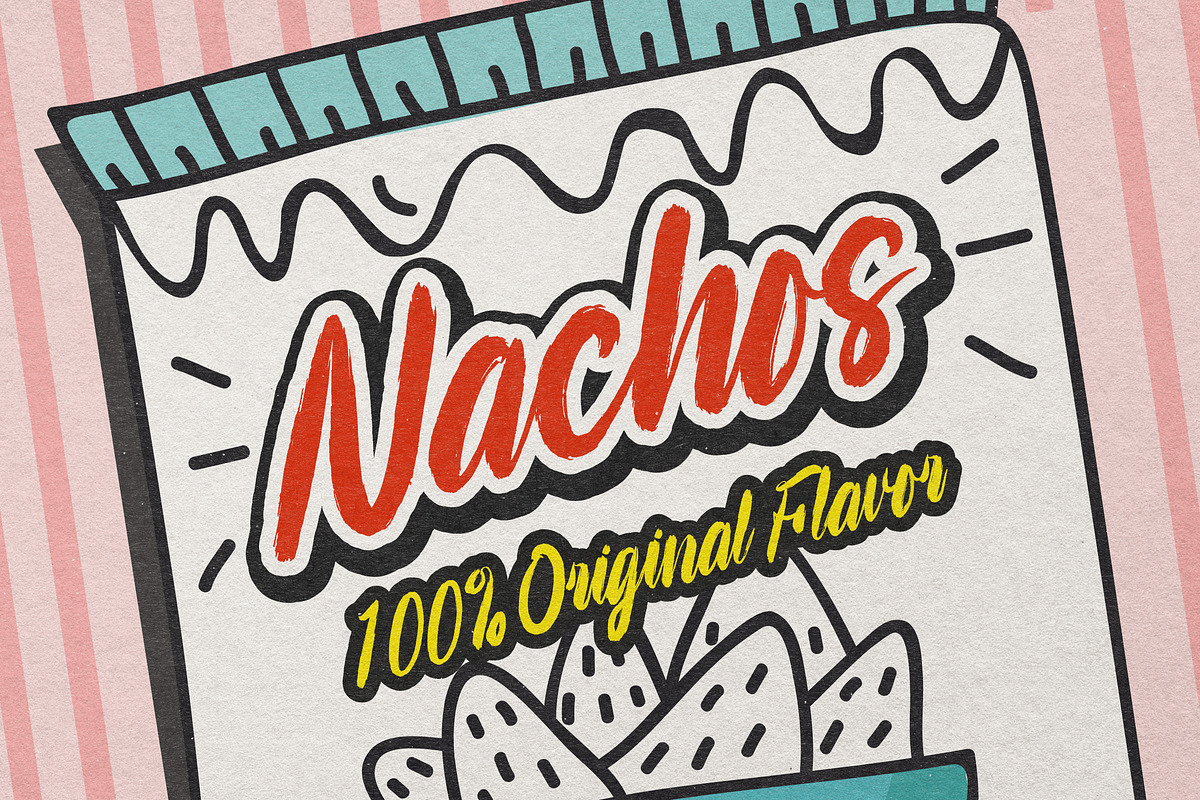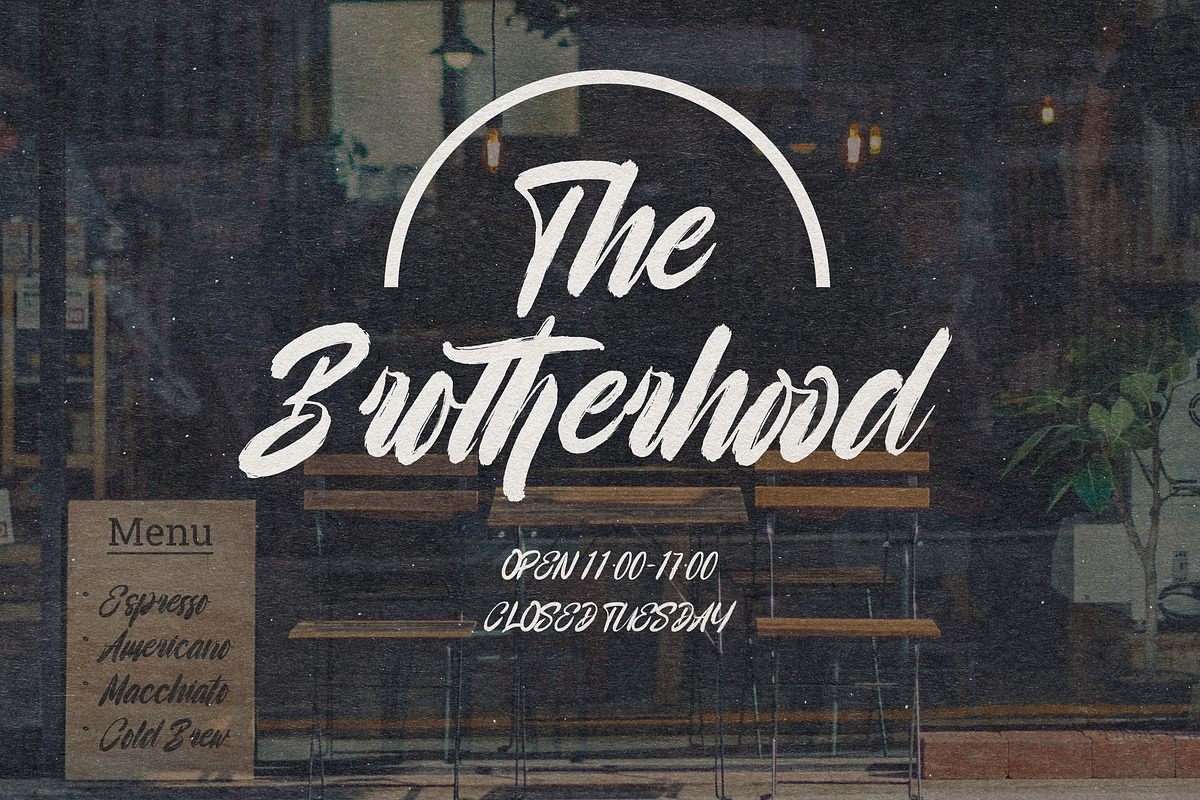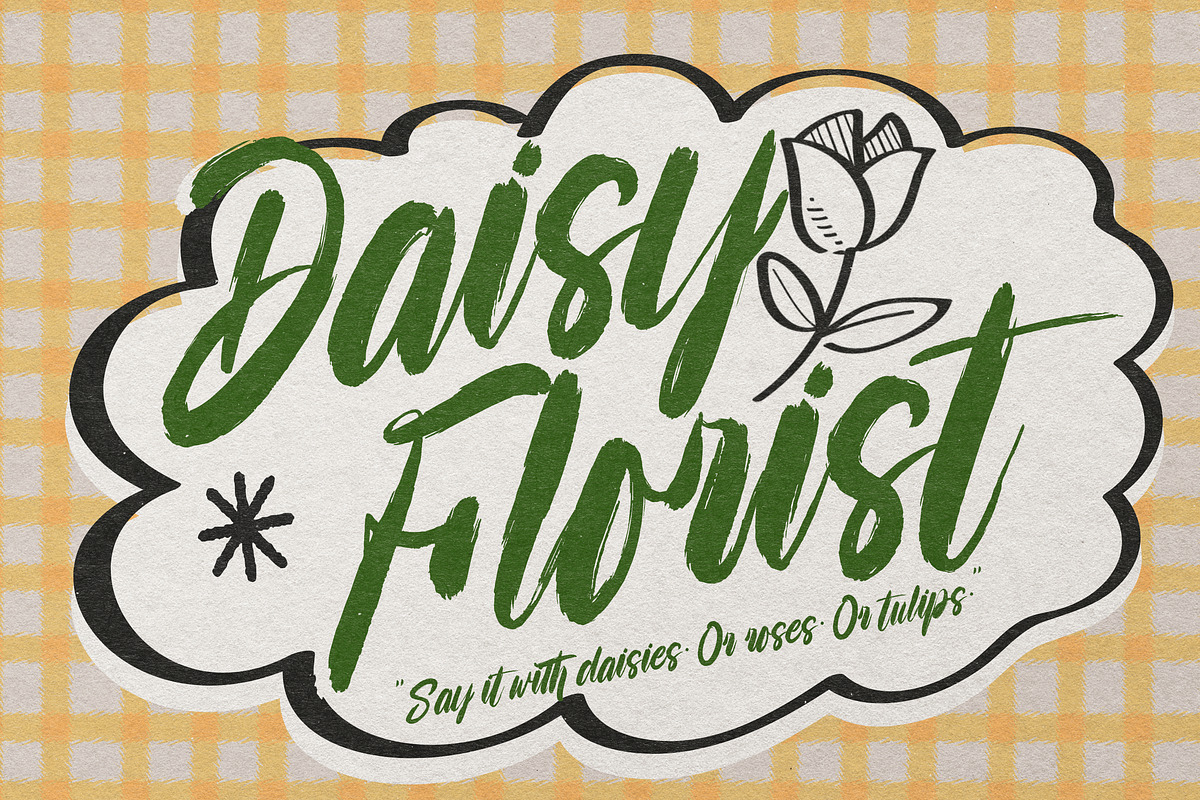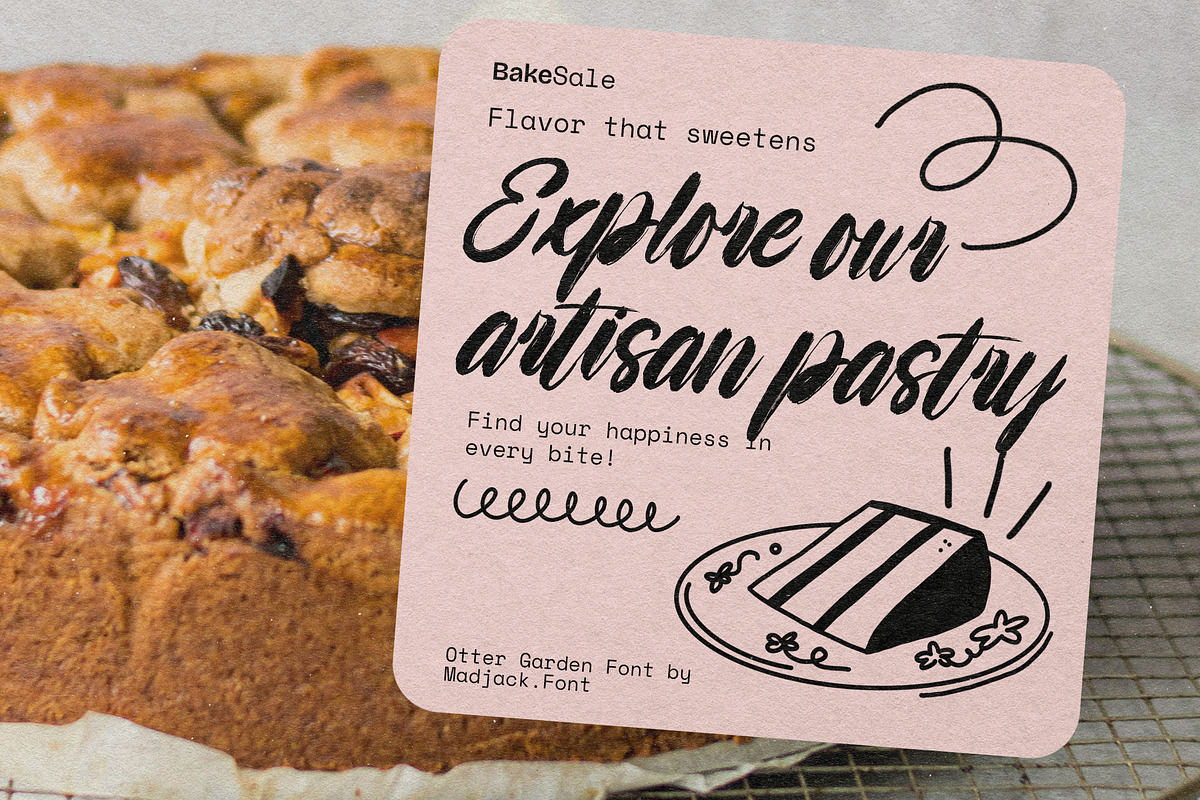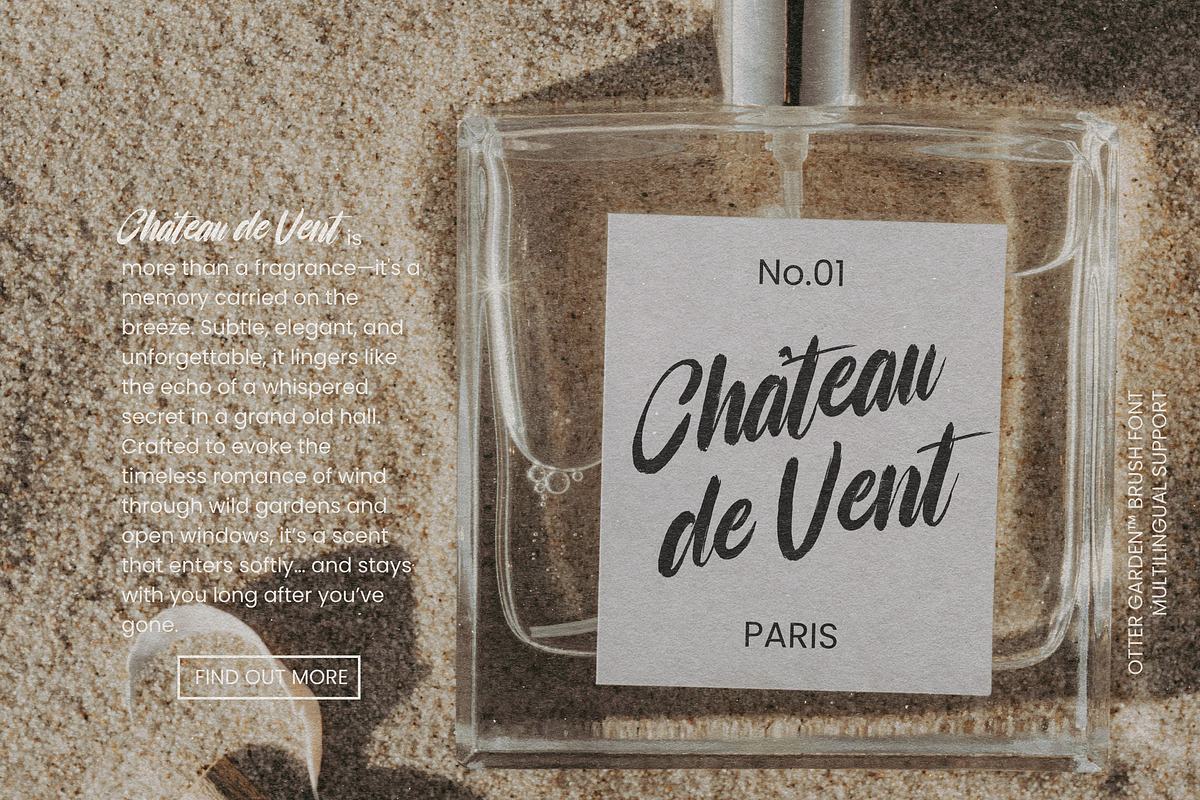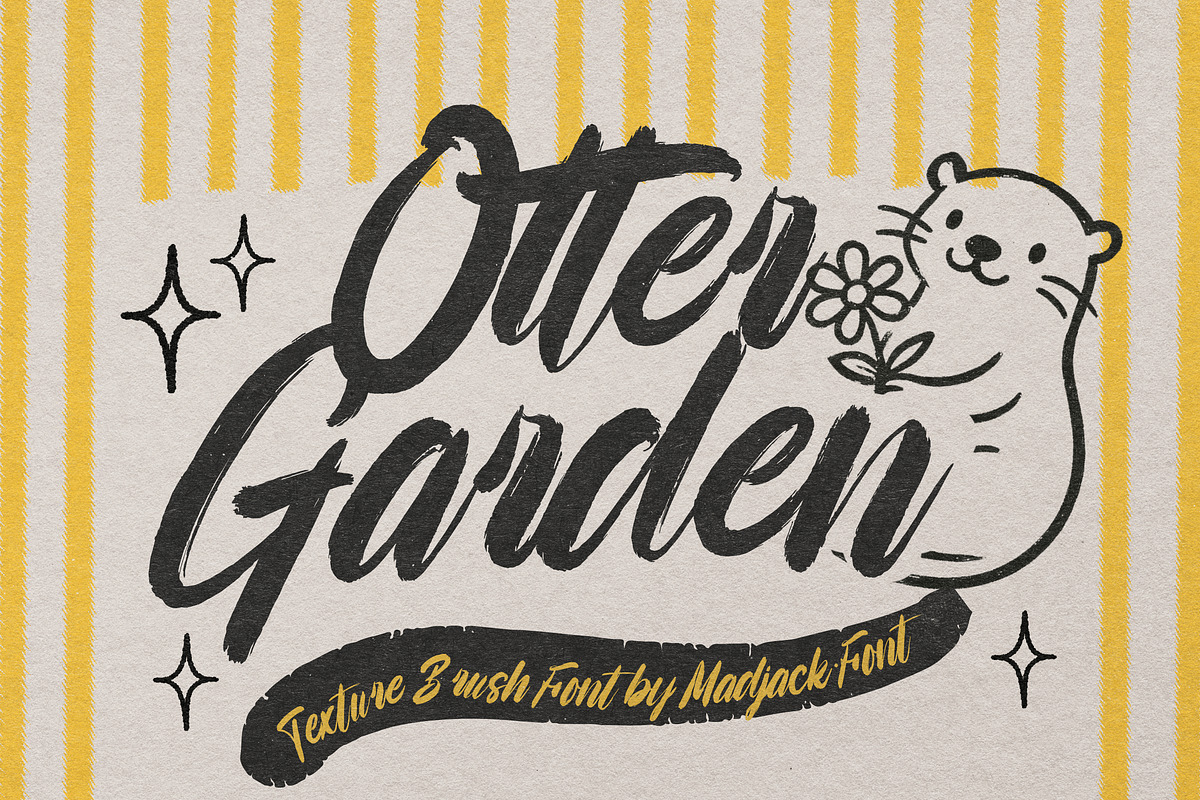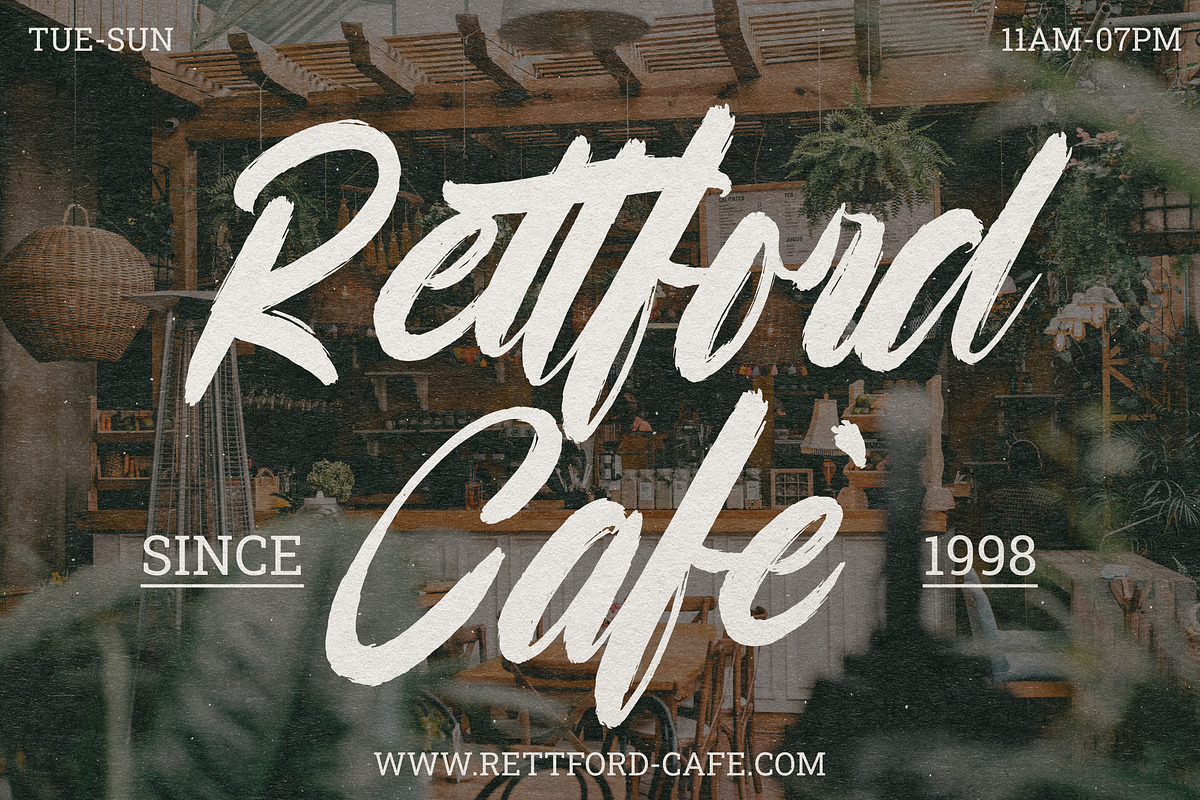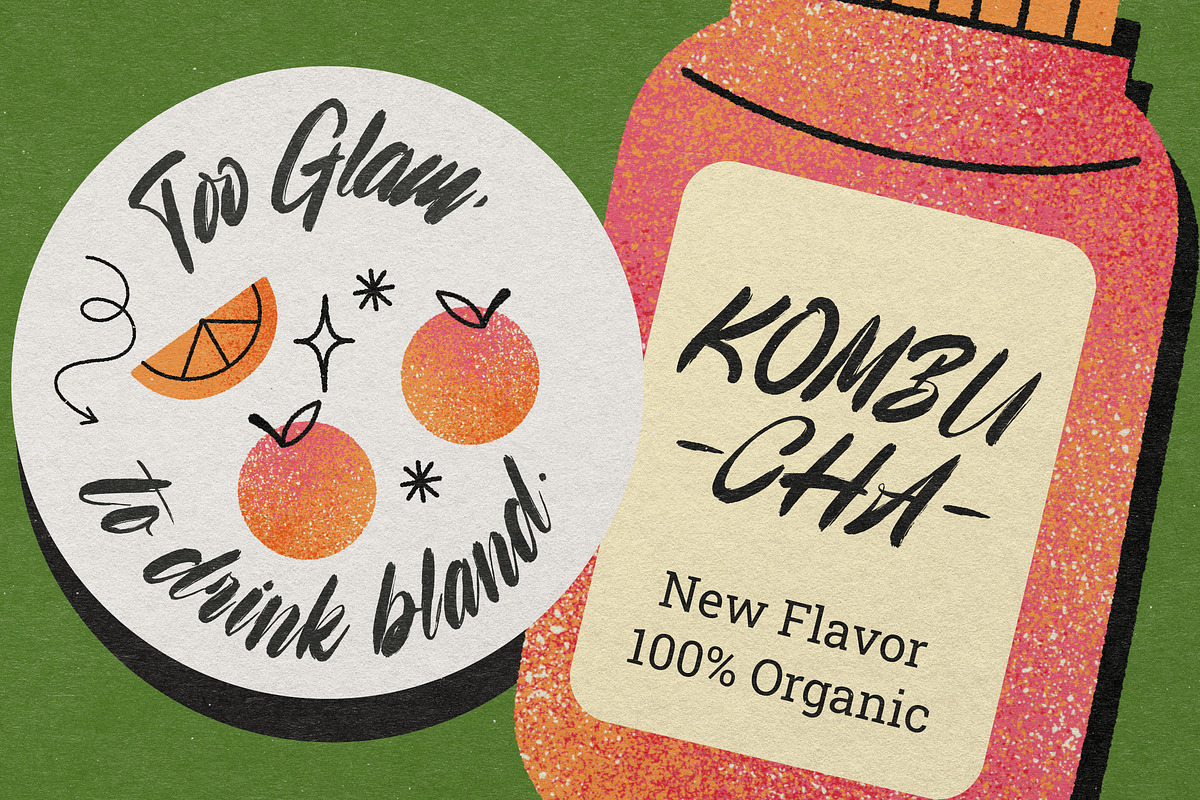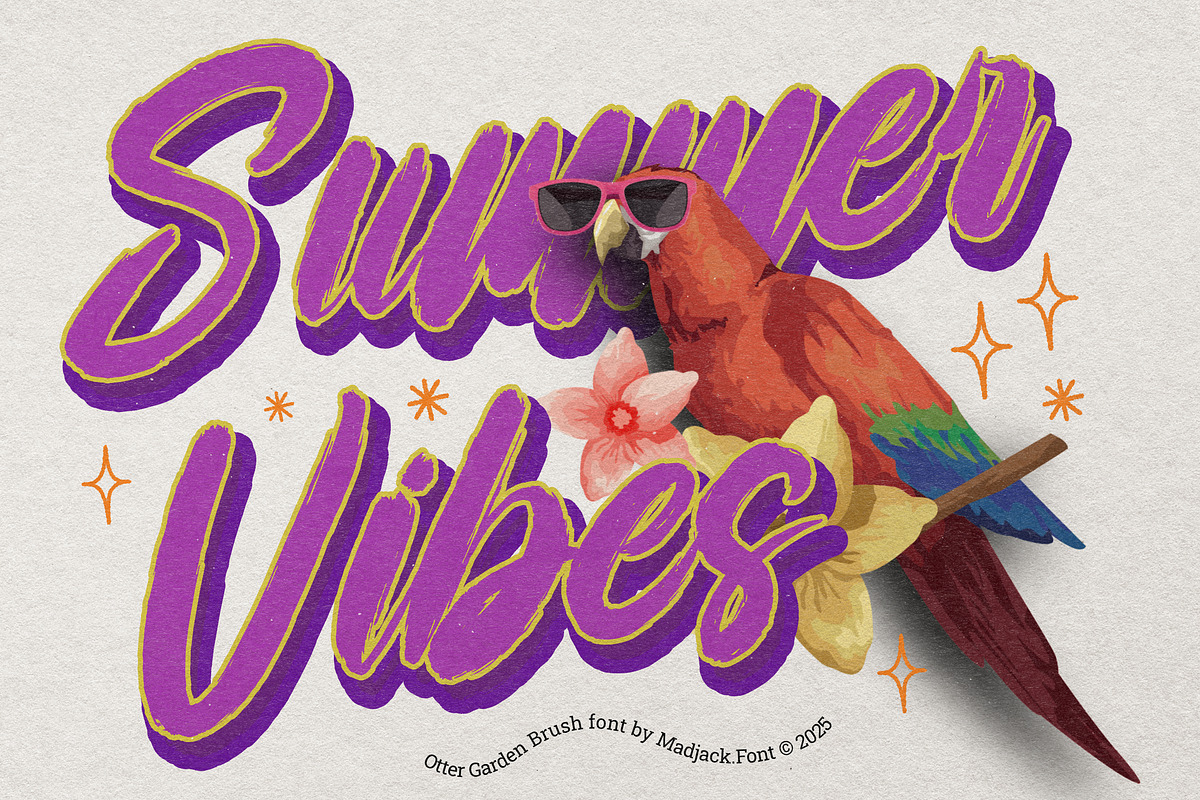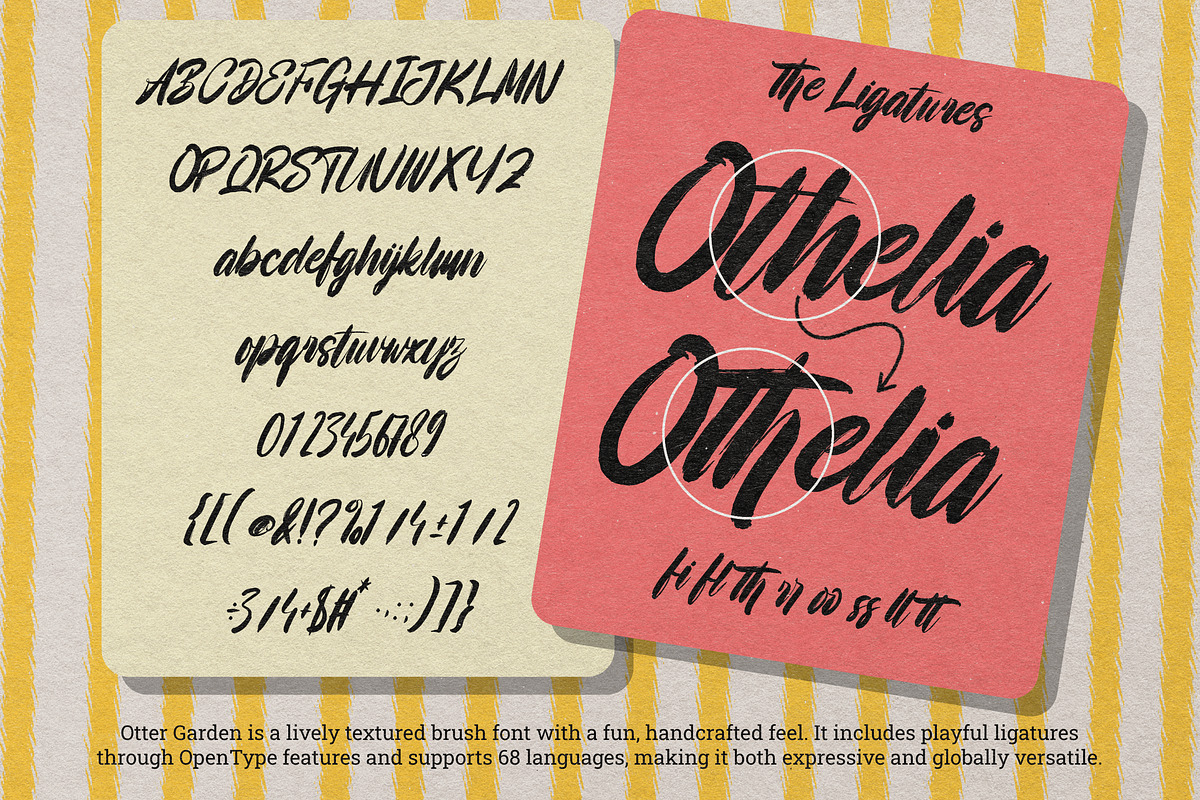
Otter Garden
Otter Garden, I'd like to introduce Kentwell, a modern and stylish handwritten font.
Otter Garden can be used for a variety of projects such as branding, labels, photography, invitations, stationery, wedding designs, social media posts, advertising, product packaging, product design, and more.